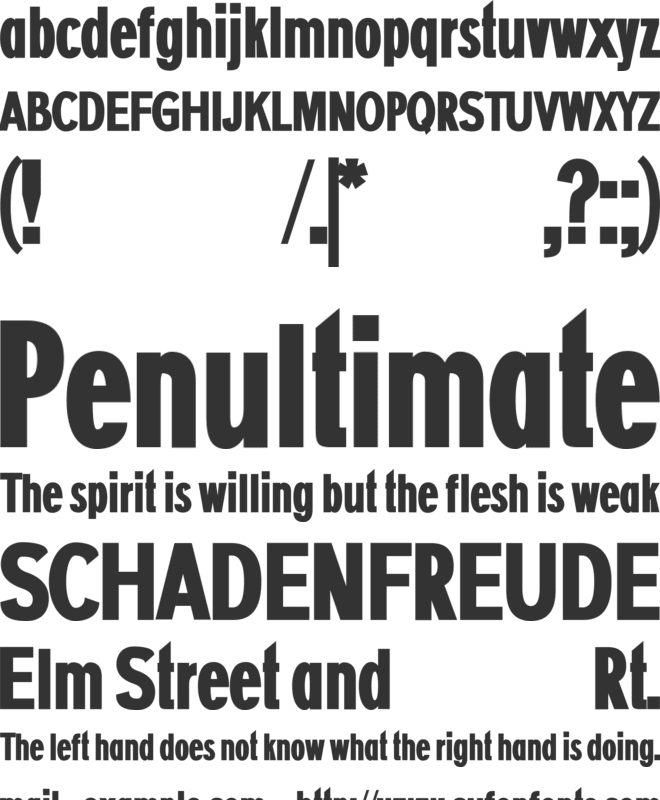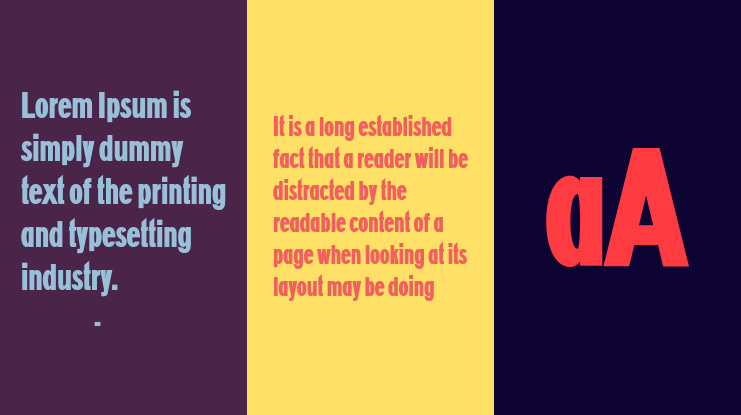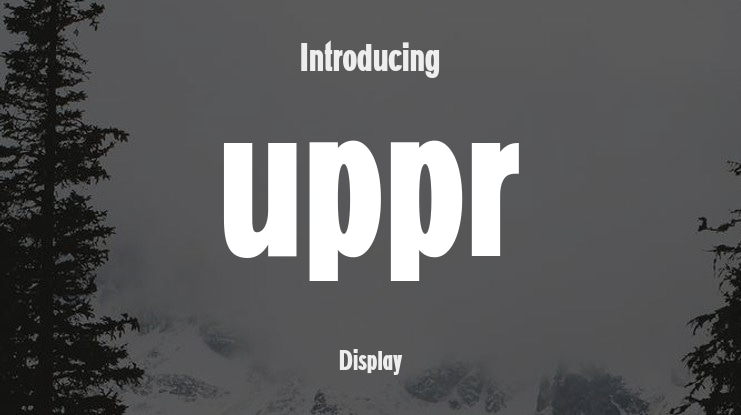
uppr Font
🎨 Font Name: uppr by Minimalist Art Studio
🎨 Font Description: uppr is a minimalist sans serif with multilingual support and crisp geometry, ideal for fashion branding, editorial layouts, and modern packaging.
βœ” Complete Latin set + multilingual diacritics
βœ” Alternates, stylistic sets & ligatures
βœ” Numbers, small caps, and extended punctuation
βœ” Bonus italics and family styles